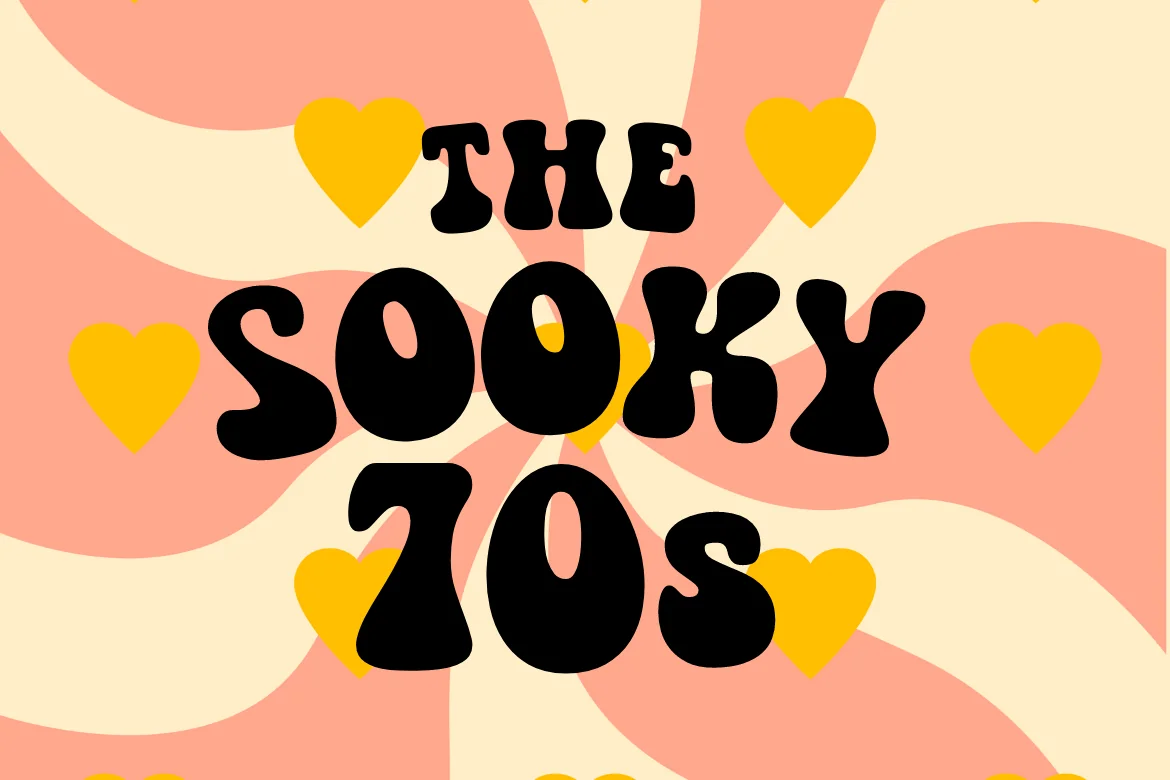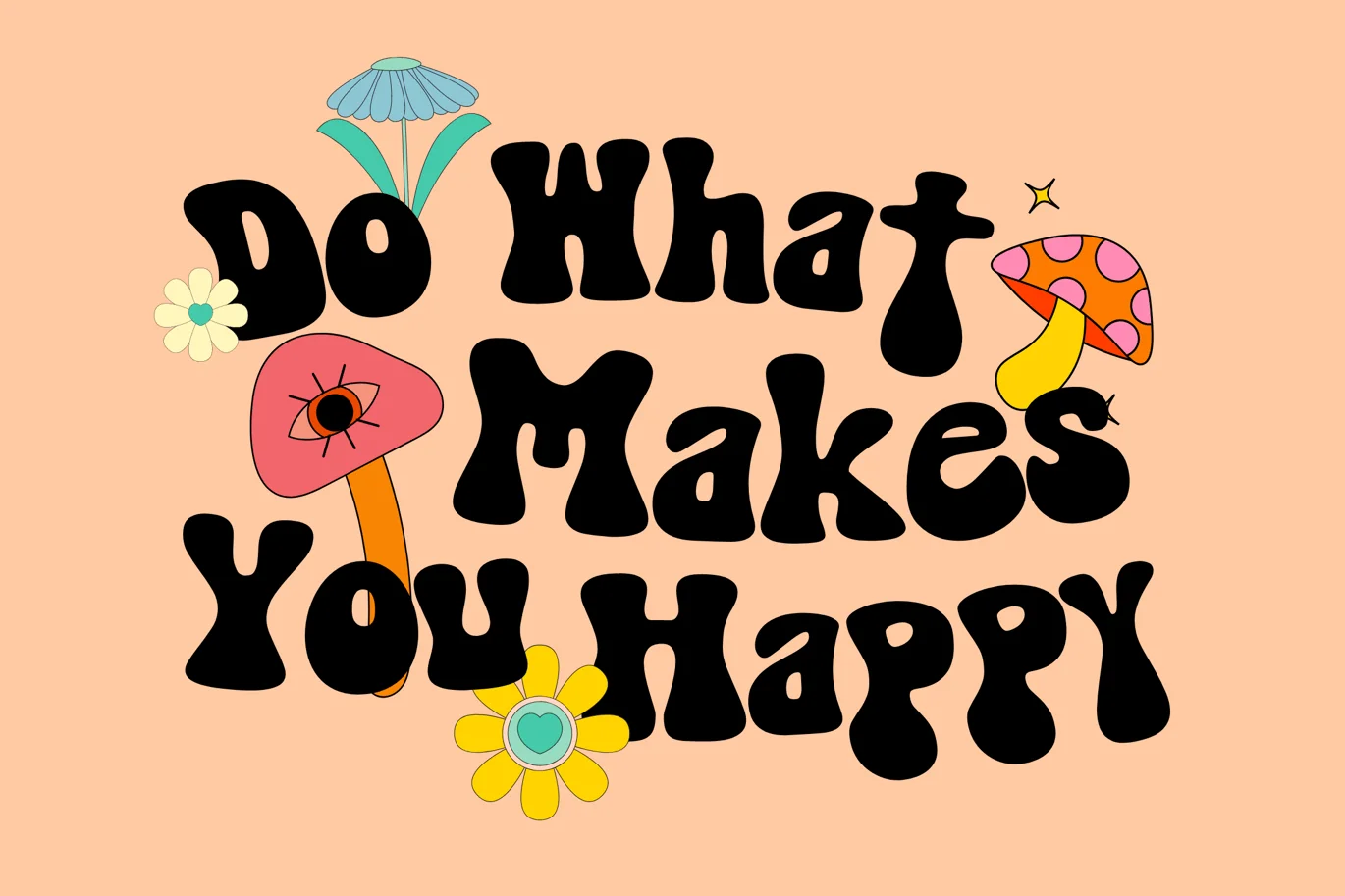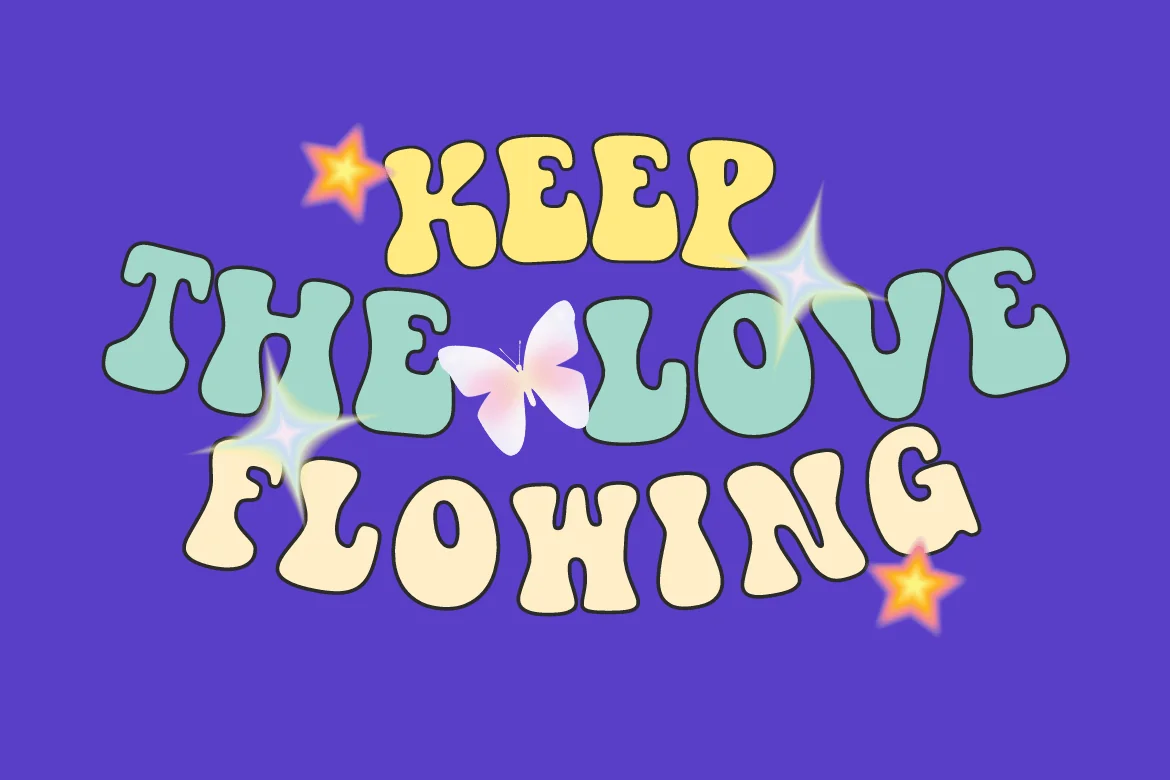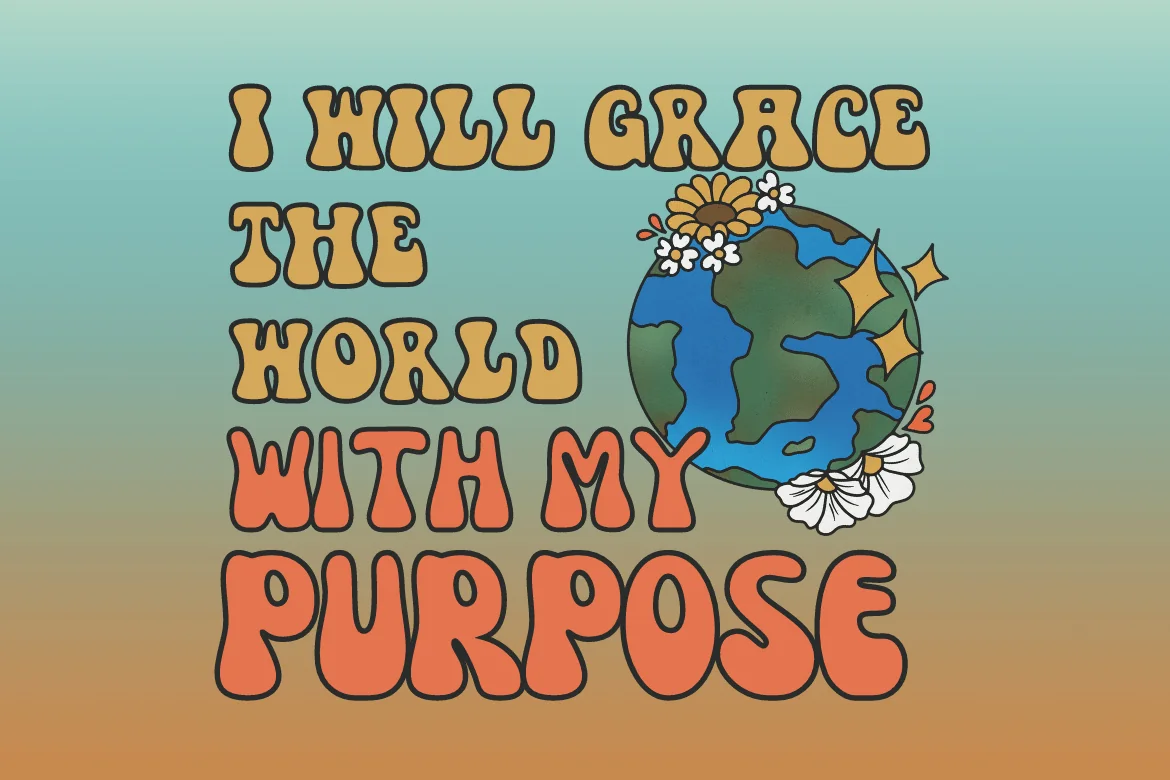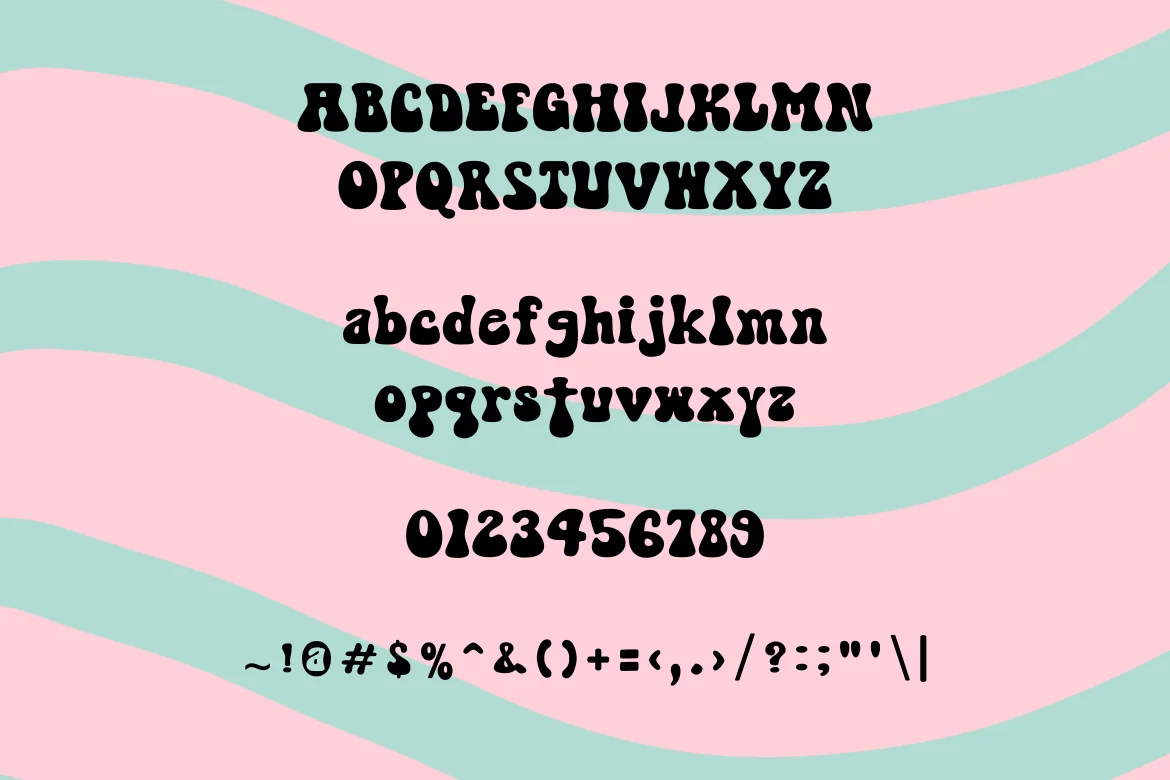
The Sooky 70s – Groovy Retro Bubbly Font
Introducing The Sooky 70s Font – Fun and Playful Bubbly Font with Groovy Retro Feel. This font was created with the spirit of the 70s and 90s sweetness. This bubbly font will be perfect for many of your projects; merchandise, posters, magazine, tshirt, and more.